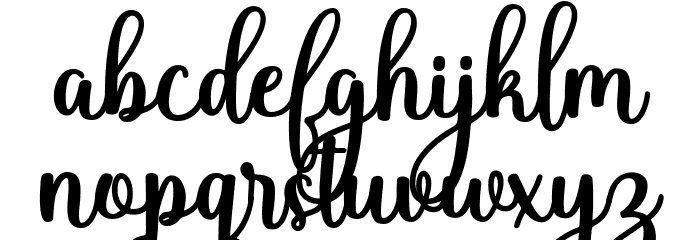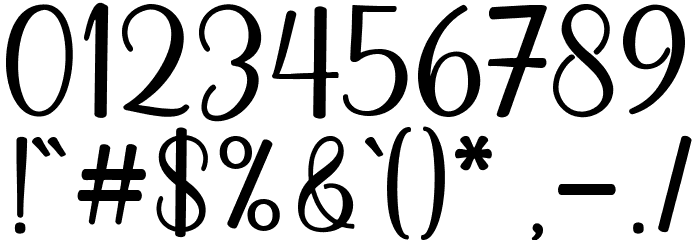
BabyValentina Font
This font features a charming and elegant script style with a playful and whimsical touch. The uppercase letters are gracefully designed with smooth curves and delicate loops, giving a sense of fluidity and motion. The lowercase letters maintain a consistent flow, with some characters extending below the baseline, adding to the font's dynamic appearance. The numerals are clear and legible, complementing the overall style. Special characters are thoughtfully integrated, maintaining the font's cohesive look. This font is perfect for projects that require a personal and artistic touch.
A charming and elegant script font with playful, whimsical curves.
- Font: BabyValentina
- Proposed Projects: Ideal for wedding invitations, greeting cards, branding, and decorative projects.
- Category: Script
- Use Case: Logos, Invitations, Decorative text